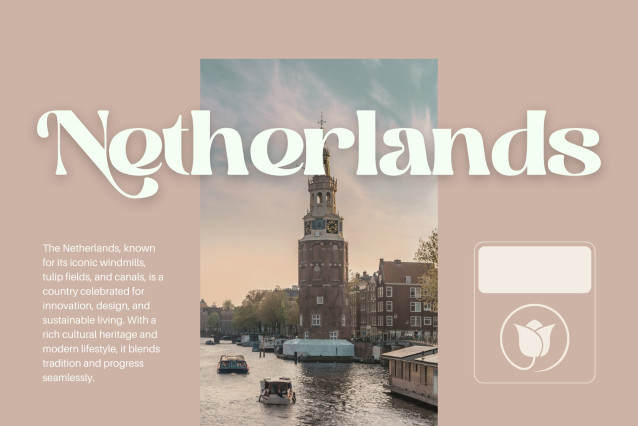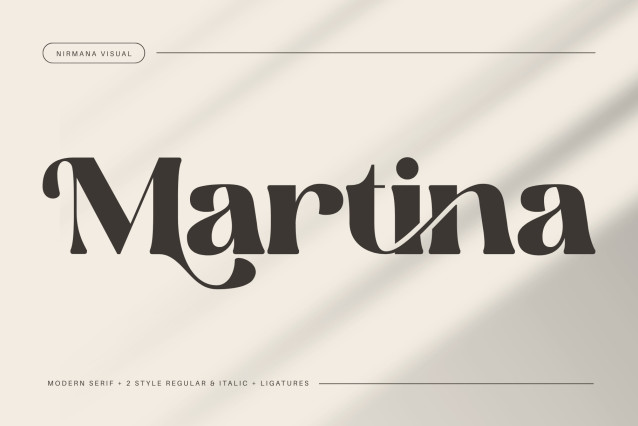
Martina Retro Font
Martina Retro Font is a classic serif font that brings elegance to your text. With smooth lines and subtle curves, this font brings a touch of sophistication to any project. Perfect for fashion magazines, stylish invitations, or luxury brands, this font exudes confidence and sophistication. Whether you are going for a timeless style or a modern touch, this font is sure to elevate your designs with its simple, elegant beauty.